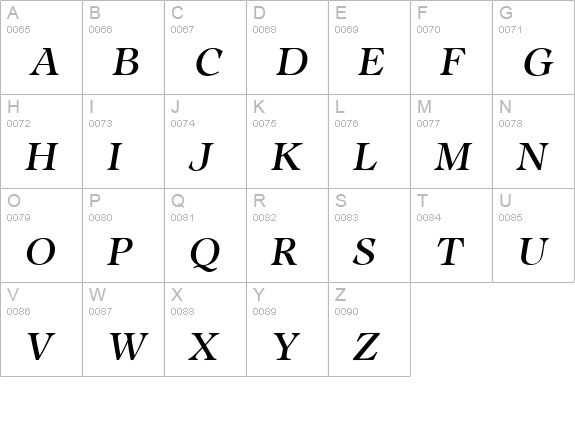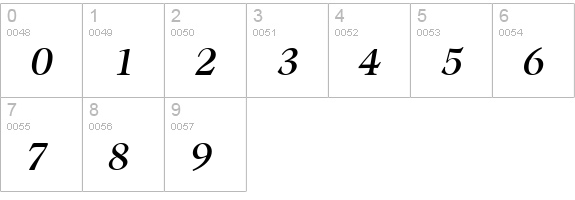
AdroitURWTMed Italic is a distinctive, italic variant in the AdroitURWTMed typeface family \xE2\x80\x94 well suited to design and typography projects.
AdroitURWTMed Italic font is a versatile and elegant typeface that exudes sophistication and style. Its sleek and modern design makes it perfect for a wide range of design projects, from branding to editorial design. The italicized version adds a touch of flair and creativity to any text it is applied to. Best of all, AdroitURWTMed Italic font is completely free to download at FontsMarket.com. This means that you can easily access this high-quality font without any cost, making it a valuable addition to your font library. Don't miss out on this opportunity to elevate your designs with the AdroitURWTMed Italic font - download it today and start creating beautiful typography effortlessly.